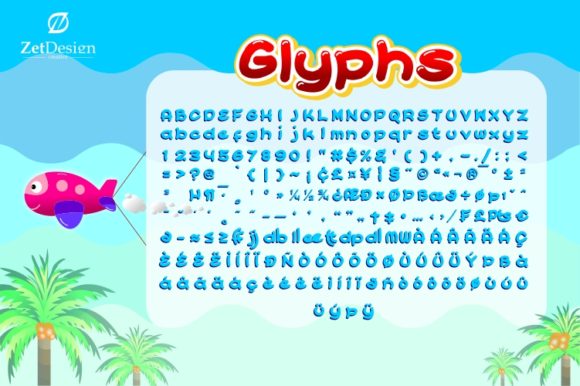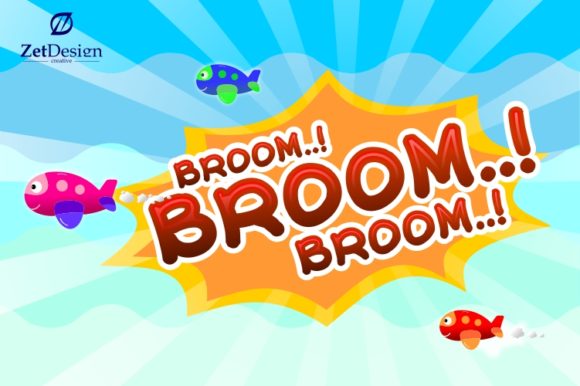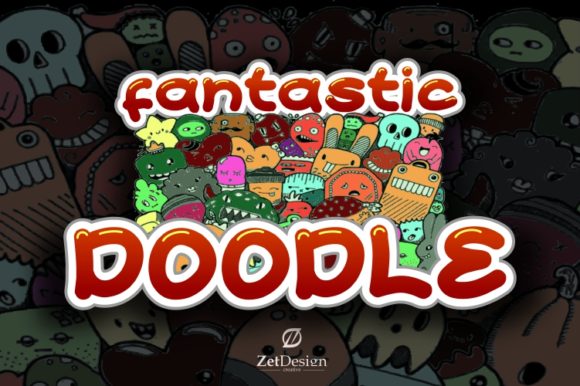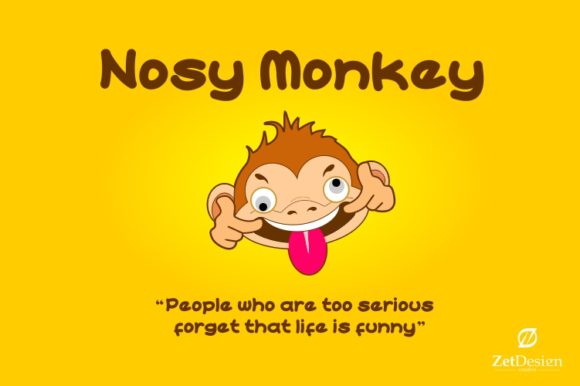
Unlock Your Creativity with Cartoonic Font
Do you remember the thrill of creating a handmade card for a loved one or designing a project that made your teacher smile? For many of us, those early creative moments sparked a lifelong passion for self-expression. And now, with the right tools, you can recapture that magic and bring joy to others. Enter the Cartoonic Font, a delightful display font that’s perfect for adding a touch of whimsy to any project.
This charming font is designed to make your ideas stand out in a crowd. With its playful, childlike spirit, Cartoonic Font is ideal for kids’ projects, school assignments, and even marketing materials that need a lighthearted tone. As a designer, you’ll appreciate the versatility of this font, which can add a unique touch to your designs without overpowering them. Whether you’re working on a children’s book, a website, or a social media campaign, Cartoonic Font is sure to bring a smile to your audience’s face.
- Character Set: The font includes a comprehensive set of characters, including Latin, Cyrillic, and Greek alphabets, as well as a range of punctuation marks and symbols.
- Unique Characteristics: Cartoonic Font is known for its playful, hand-drawn style and its use of bold lines and bright colors, making it ideal for children’s books, cartoons, and other creative projects.
- Kerning and Ligatures: Cartoonic Font includes advanced kerning and ligature features, ensuring that the font looks its best in a wide range of text settings.
Designer Review: Cartoonic Font
Overall, I think Cartoonic Font is an interesting choice for projects that need a playful and youthful vibe. ✨ The font is highly customizable, and it’s great to see the designers have included so many options for adjusting the style and feel. I also appreciate the wide range of language support – it’s essential for creating content that can reach a global audience.
Here are some specific things that work well:
- ✨ Customizable line width, which allows for a more realistic hand-drawn look.
- ✨ Support for multiple languages, making it a great choice for international projects.
- ✨ Highly versatile, suitable for a wide range of applications, from logos to body text.
However, I do have some concerns:
- ⚠️ The font can be a bit too playful for some projects, and may not convey the right level of professionalism.
- ⚠️ Some characters may not be as well-designed as others, which can create an uneven visual experience.
Overall, I think Cartoonic Font is a solid choice for projects that require a lighthearted and approachable tone. While it may not be suitable for every project, it’s definitely worth considering for the right application.
Getting the Most Out of Cartoonic Font
To get the most out of Cartoonic Font, consider the following tips:
- Use Cartoonic Font for titles and headings to add a playful touch to your design.
- Combine Cartoonic Font with other fonts to create a unique and eye-catching design.
Cartoonic Font is commonly used for:
- Children’s books and educational materials.
- Cartoon-style logos and branding.
- Playful advertisements and promotional materials.